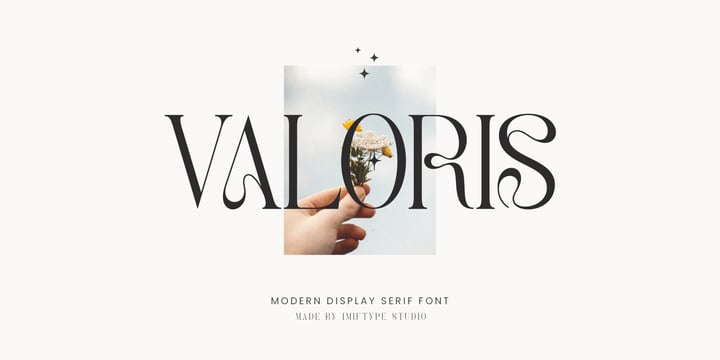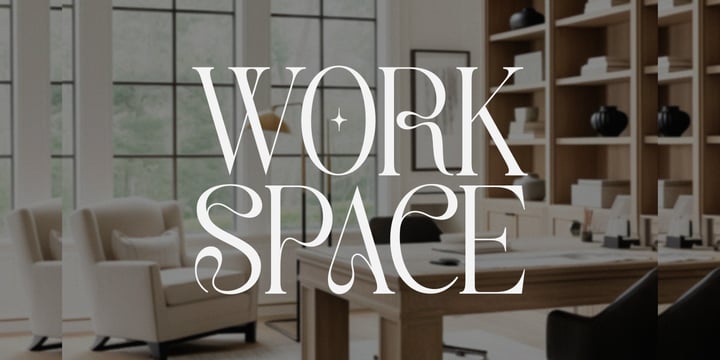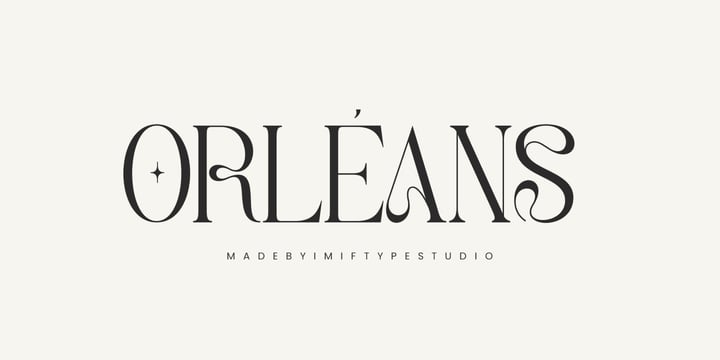
Imiftah Nurnazarudin
Imiftah Nurnazarudin is an Indonesian type designer and the founder of Imiftype Studio, based in Garut, West Java. With a background in digital design and several years of experience working across visual and microstock platforms, his work focuses on developing typefaces that combine clarity, structure, and contemporary visual character.
His approach to type design is rooted in system thinking—where proportion, spacing, and rhythm are carefully constructed to achieve both aesthetic balance and functional performance. He is particularly interested in creating versatile typefaces that can adapt across various design needs, from branding to digital interfaces.
Influenced by both global design trends and local visual culture, Imiftah explores typography as a medium of communication rather than decoration. His process emphasizes consistency, readability, and purposeful form, aiming to produce typefaces that are not only visually engaging but also practical in real-world applications.
Through Imiftype Studio, he continues to refine his design perspective by experimenting with form, improving technical precision, and developing a cohesive body of typographic work.